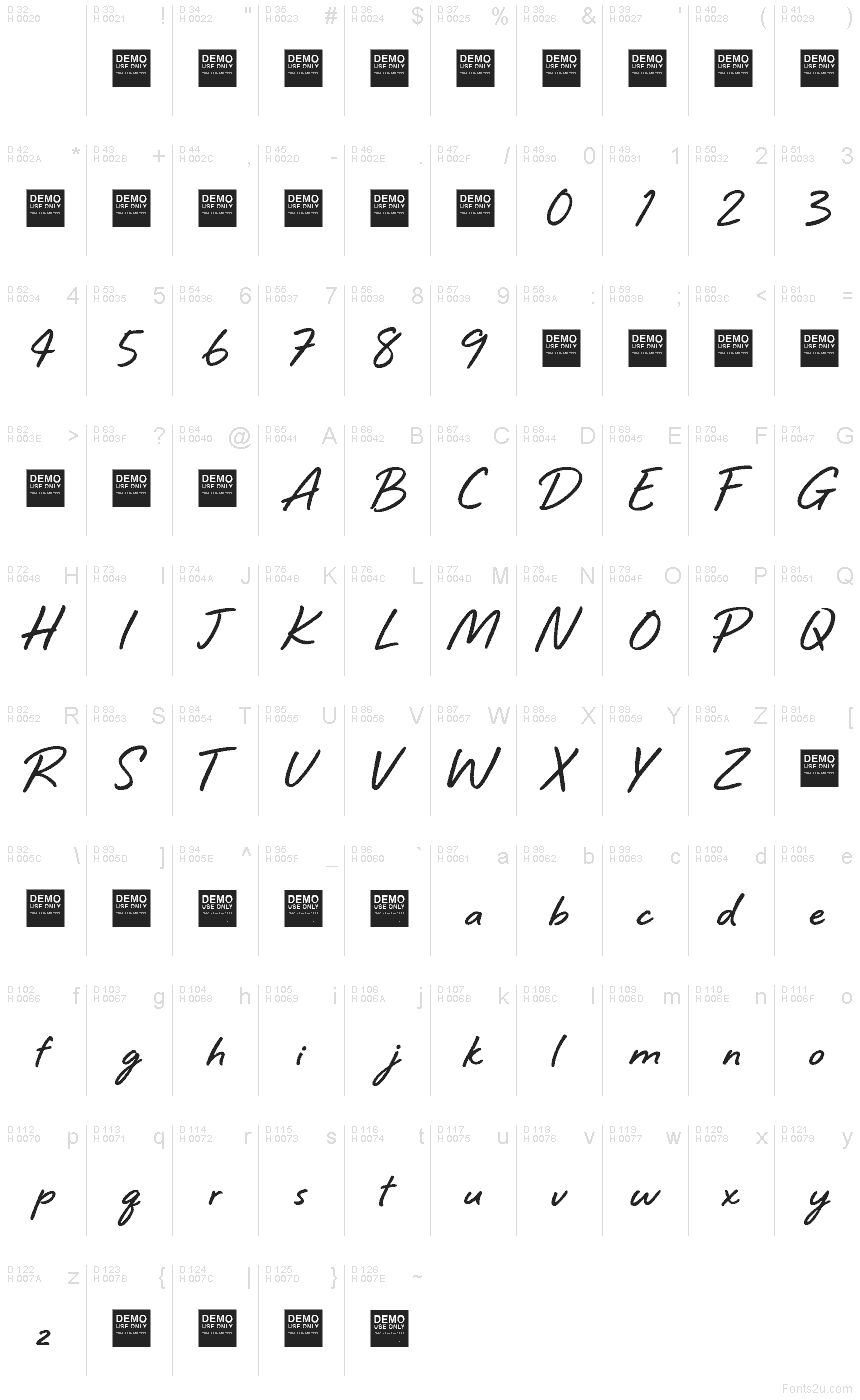
Radiant Glow
Radiant Glow font is a magnificent exploration of calligraphic styles by BLKBK Fonts, bringing in free handwritten font aesthetics with flowing lines and visually stunning swirls and twirls. Each Radiant Glow line is expressive in its own unique approach, allowing your words to move from simple text to captivating image art that delivers an engaging experience.